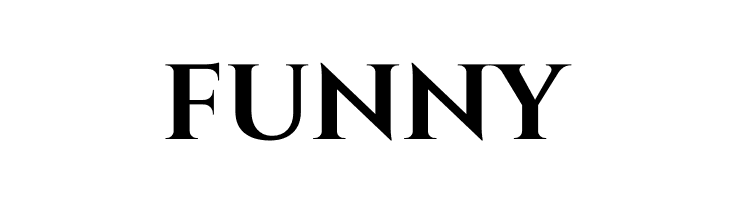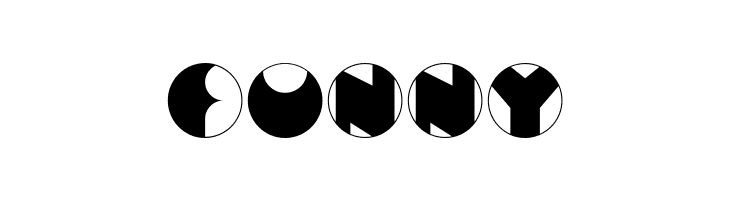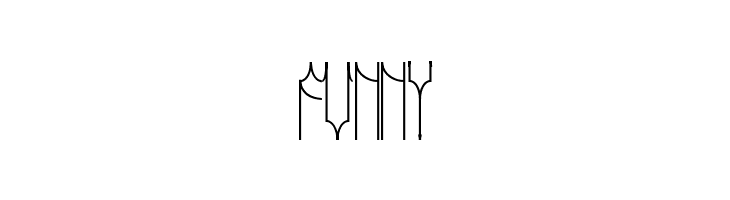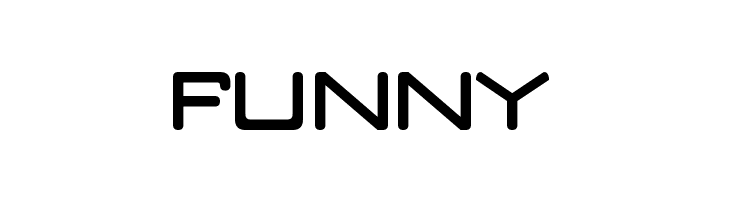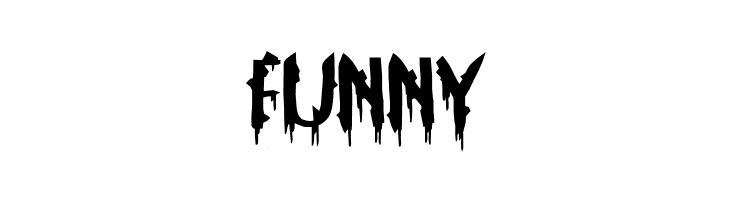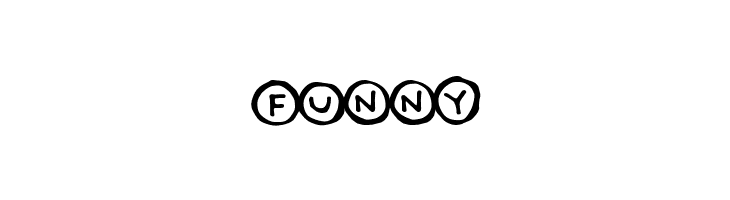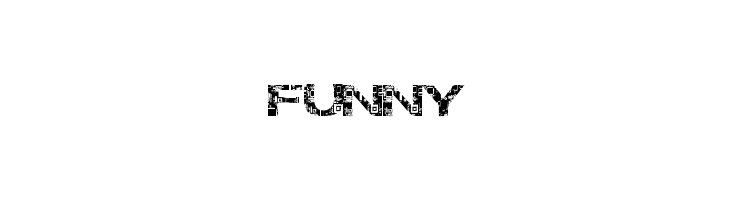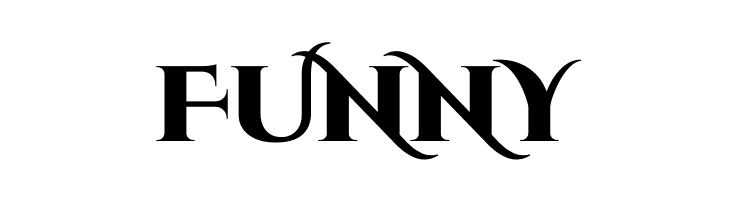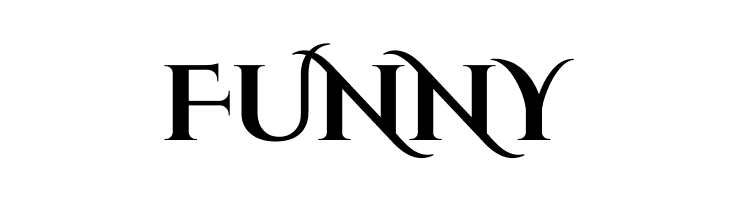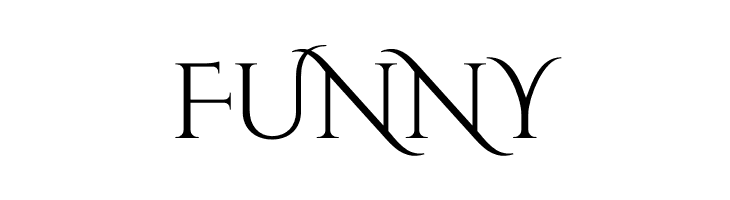
A bold, geometric font with a modern, block-like design.
A pixelated, block-style font with a digital, retro aesthetic.
A bold, geometric font with hollow interiors and a modern, industrial feel.
A bold, blocky font with hollow interiors and a geometric, modern style.
A bold, blocky font with an inverse design and geometric shapes.
A playful, hand-drawn font with bold, uneven strokes and a cartoonish style.
A bold, geometric typeface with a modern, industrial style.
A playful, hand-drawn font with a dynamic and artistic style.
A bold, brushstroke-style font with dynamic, textured characters.
A bold, geometric font with a futuristic and modular design.
A bold, gothic-style font with intricate details and sharp edges.
A gothic, medieval-style font with sharp, ornate detailing.
A bold, gothic outline font with intricate detailing and a medieval aesthetic.
A gothic, medieval-style font with sharp, angular lines and ornate detailing.
A dripping, horror-themed font with jagged, melting characters.
A playful, outlined font with bold, rounded characters resembling inflated bubbles.
A bold, playful font with rounded, flowing forms and decorative elements.
A bold, modern sans-serif font with clean lines and consistent stroke width.
A modern, clean sans-serif font with uniform stroke width and high legibility.
A bold, condensed sans-serif font ideal for impactful designs.
A modern, clean sans-serif font with uniform strokes and geometric shapes.
A bold, rugged font with a linocut-inspired, hand-carved appearance.
A dynamic, cursive script font with high contrast and elegant flow.
An elegant, cursive font with decorative loops and swirls.
A playful, handwritten font with fluid strokes and a casual appearance.
A dynamic, cursive script font with bold, sweeping strokes and high contrast.
An elegant, flowing script font with intricate loops and swirls.